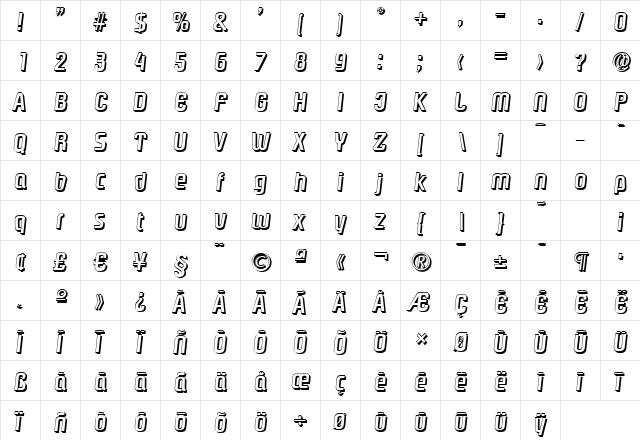
MaxBeckerShadow-Medium Italic Font Preview
MaxBeckerShadow-Medium Italic
Design Context for MaxBeckerShadow-Medium Typeface
MaxBeckerShadow-Medium brings ornamental detail and strong personality to headlines and identities, where visual impact matters more than quiet functionality. The slanted form adds forward momentum and visual energy.
Font Pairing: Pair with a clean neutral sans-serif for body copy to let MaxBeckerShadow-Medium's character lead without overwhelming the composition.
Pro Tip: Use MaxBeckerShadow-Medium exclusively at display sizes — it was designed to be seen, not read at length. Let a neutral companion handle body copy.